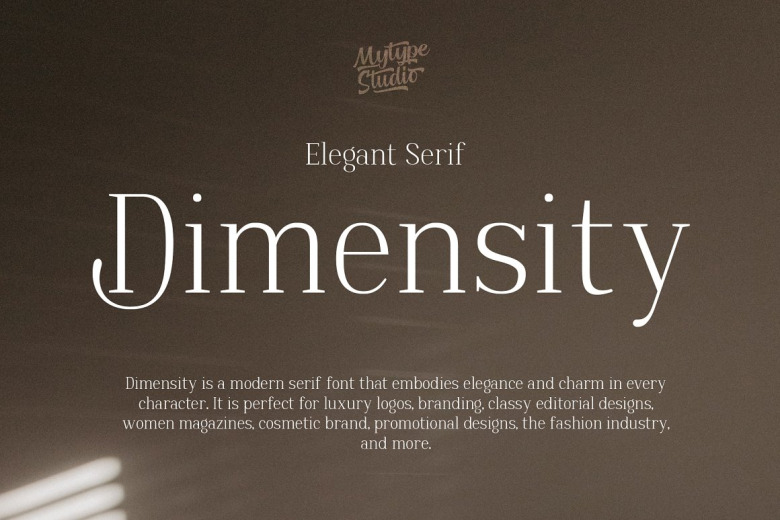
Dimensity Font
Dimensity evokes a sense of refined sophistication with its serif forms that flow fluidly yet prominently. With support for lowercase and uppercase letters, numerals, punctuation and both standard ligatures and an assortment of international characters, Dimensity elevates visual messaging with its balance of finesse and flourish no matter the language or context.
Dimensity Serif Font